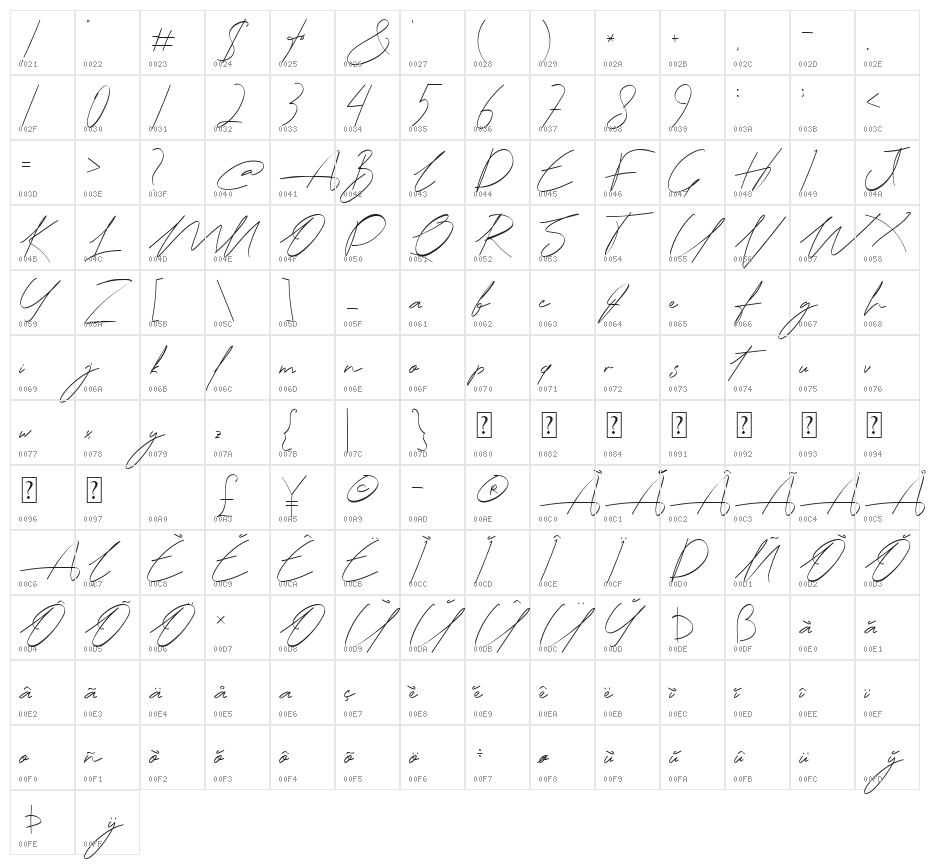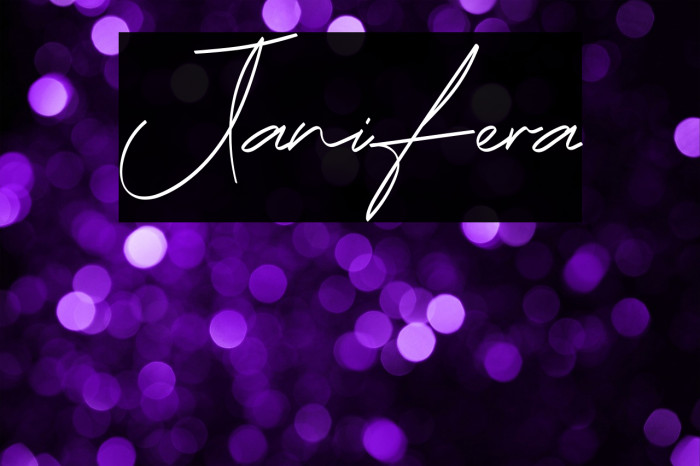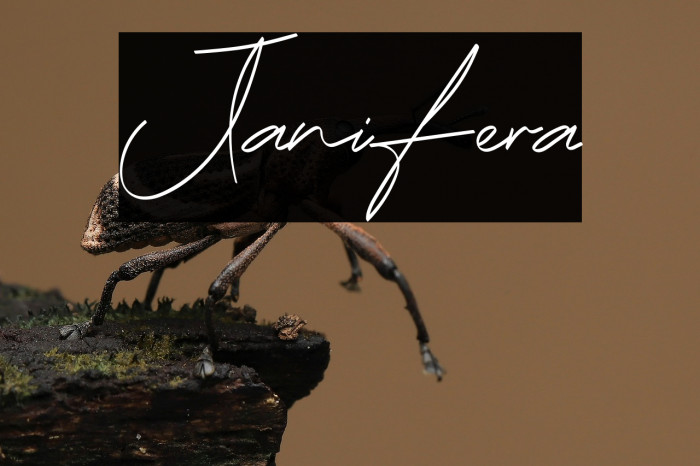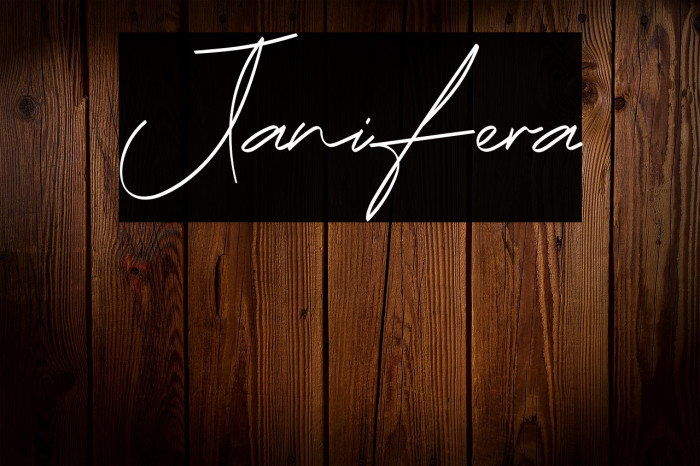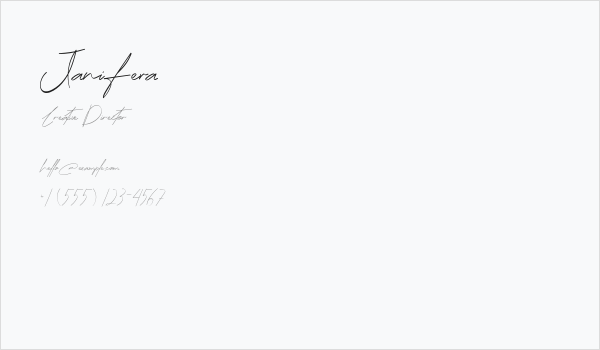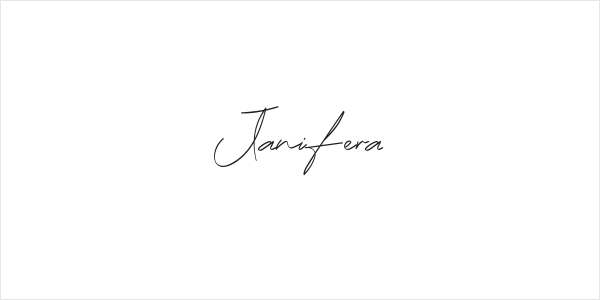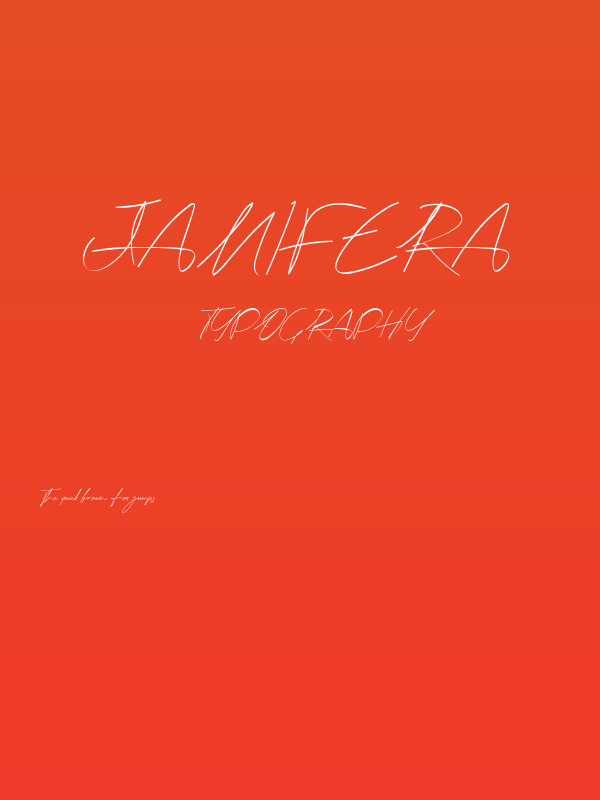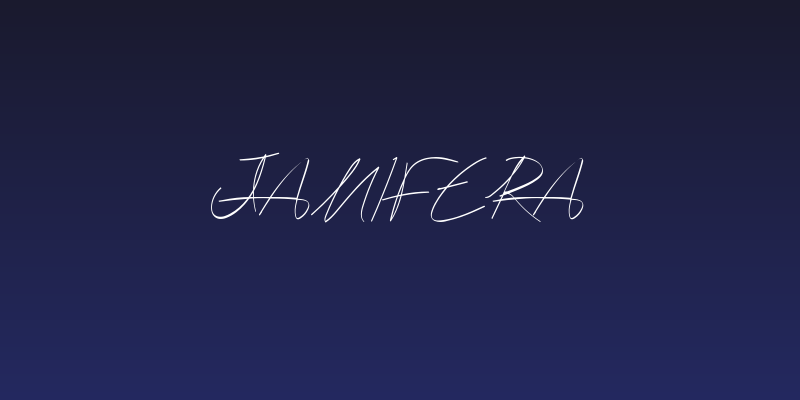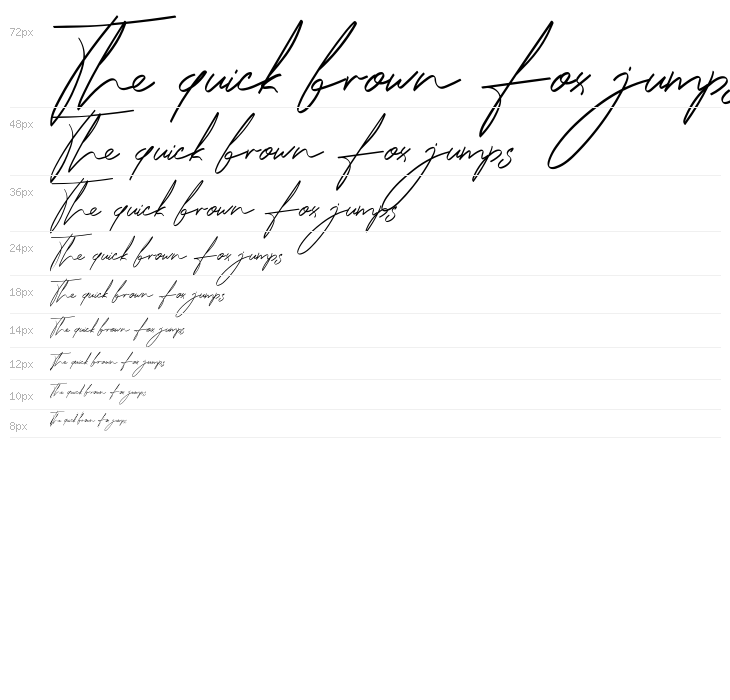
Janifera Font
Janifera Description
This font exhibits a dynamic and fluid handwritten style, characterized by its elegant and elongated letterforms. The strokes are thin and delicate, giving it a sophisticated and airy appearance. The uppercase letters maintain a consistent height, while the lowercase letters feature distinctive loops and curves, adding to its graceful aesthetic. The numerals are tall and slender, complementing the overall style. Special characters are integrated seamlessly, maintaining the font's cohesive look. This font's unique charm lies in its ability to convey a sense of personal touch and creativity.
| Overall Style | Elegant, Artistic |
| Use Case | Invitations, Branding, Artistic projects |
| Proposed Projects | Ideal for wedding invitations, personal branding, artistic projects, and elegant stationery. |